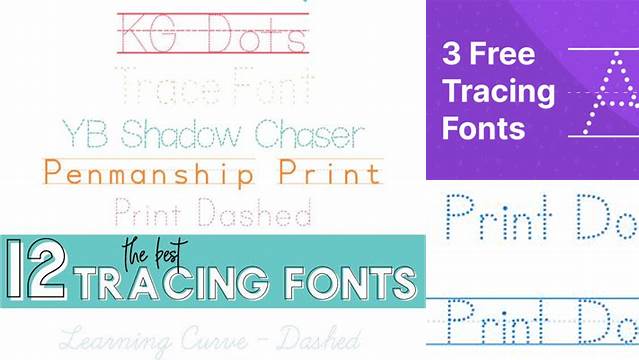
Tracing Font: Free Downloads To Improve Handwriting
Are you looking for tracing fonts for free download? Look no further! This guide provides everything you need to know about tracing fonts, where to find them, and how to use them effectively. Whether you're a teacher creating worksheets, a parent helping your child learn to write, or a designer looking for a unique font style, tracing fonts can be a valuable resource. Let's dive in and explore the world of tracing fonts!
What are Tracing Fonts?
Tracing fonts, also known as dotted fonts or dashed fonts, are specifically designed to help individuals learn and practice handwriting. These fonts display letters as a series of dots or dashed lines, which users can then trace over to develop muscle memory and improve their penmanship. The primary purpose of tracing fonts is educational, particularly for young children who are just beginning to learn how to form letters. However, they can also be beneficial for older individuals who want to improve their handwriting or practice a new script.
The key feature of tracing fonts is their visual guidance. Instead of presenting a solid letterform, the dotted or dashed lines provide a clear path for the user to follow. This visual aid is crucial for beginners as it helps them understand the direction and sequence of strokes needed to create each letter. By repeatedly tracing these letters, users gradually internalize the movements, which eventually leads to more confident and accurate handwriting. Furthermore, tracing fonts often come in various styles, including uppercase, lowercase, and numbers, making them versatile for different learning needs. Some fonts also include directional arrows to further assist users in understanding the correct way to form each letter. The simplicity and effectiveness of tracing fonts make them an indispensable tool in early childhood education and handwriting practice.
Why Use Tracing Fonts?
So, why should you consider using tracing fonts? The benefits are numerous and cater to various needs. First and foremost, tracing fonts are an excellent tool for early childhood education. They help young children develop the fundamental skills needed for handwriting, such as letter recognition, fine motor control, and hand-eye coordination. By tracing letters, children learn the correct way to form each character, building a strong foundation for future writing skills. Teachers and parents alike can use tracing fonts to create engaging and effective learning materials.
Beyond early education, tracing fonts can also be beneficial for individuals with learning disabilities or those who need to improve their handwriting. For people with dyslexia or dysgraphia, tracing fonts can provide a structured and visual way to practice letter formation, making the learning process more accessible and less frustrating. Similarly, adults who want to refine their handwriting can use tracing fonts to identify and correct areas where they struggle. The repetitive nature of tracing helps to reinforce proper letter formation, leading to more legible and consistent handwriting. Moreover, tracing fonts can be a fun and engaging way to practice calligraphy or learn a new script. By tracing the letterforms of different calligraphic styles, users can gradually develop the muscle memory and technique needed to create beautiful and elegant writing. In essence, tracing fonts offer a versatile and effective method for improving handwriting skills across a wide range of ages and abilities.
Where to Find Tracing Fonts for Free Download
- Free Fonts Websites: Many websites specialize in offering free fonts. A quick Google search for "free tracing fonts" will reveal numerous options. Some popular sites include 1001 Free Fonts and Font Squirrel. Just be cautious and ensure the site is reputable before downloading anything.
How to Use Tracing Fonts
Using tracing fonts is straightforward, but here are some tips to help you get the most out of them:
- Create Worksheets: Open a word processing program like Microsoft Word or Google Docs. Select the tracing font you installed. Type the letters, words, or sentences you want to create tracing exercises for. Adjust the font size and spacing as needed to make the tracing clear and easy to follow.
Tracing fonts are a valuable resource for anyone looking to improve their handwriting skills. Whether you're a teacher, parent, or individual learner, tracing fonts can provide the visual guidance and practice needed to develop strong handwriting habits. With numerous websites offering free tracing fonts for download, it's easier than ever to access this helpful tool. By following the tips and techniques outlined in this guide, you can effectively use tracing fonts to enhance your handwriting skills and make learning more enjoyable. So go ahead, download a tracing font, and start practicing today!